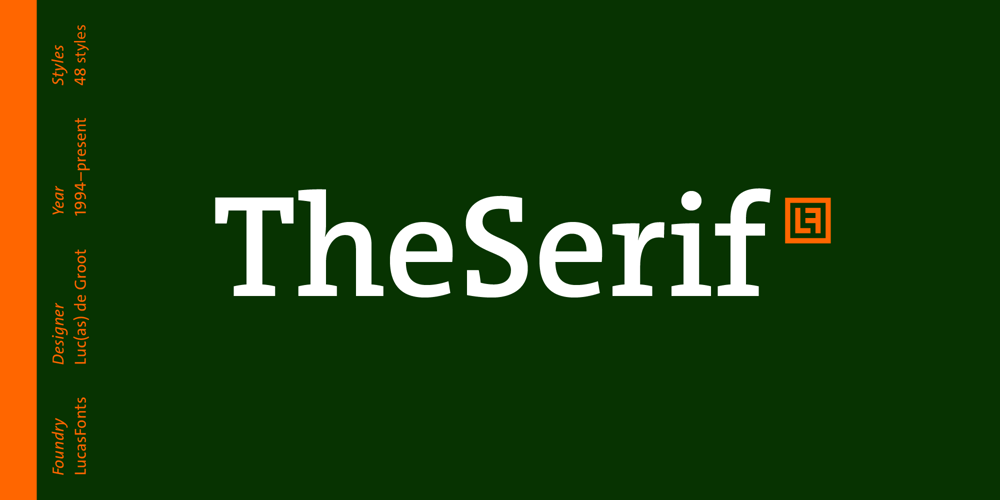
TheSerif
TheSerif font
TheSerif Font Family was designed by Luc(as) de Groot and published by LucasFonts. TheSerif contains 52 styles and family package options. TheSerif is part of the Thesis superfamily. Although it was conceived to be the perfect secondary font within the Thesis system – for use in headlines, subheads, pull quotes, etc. – TheSerif has also been used successfully as a text font in its own right.